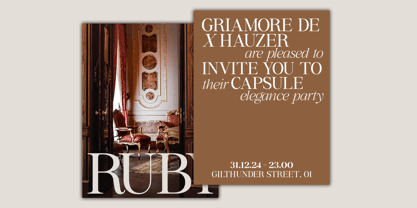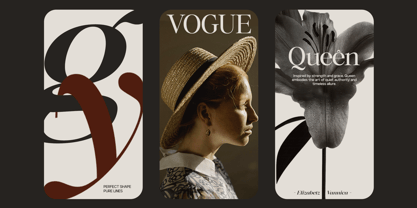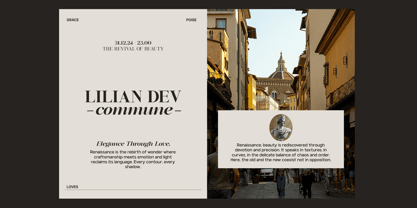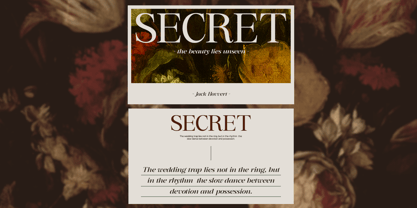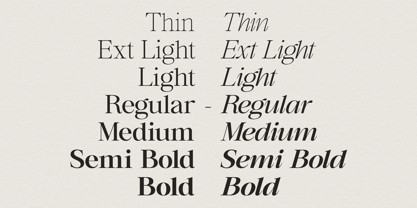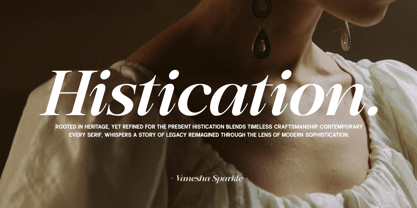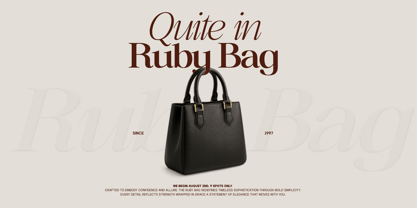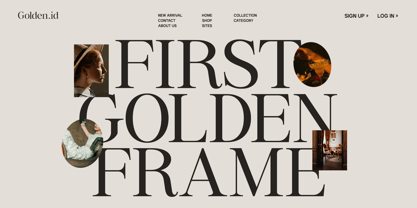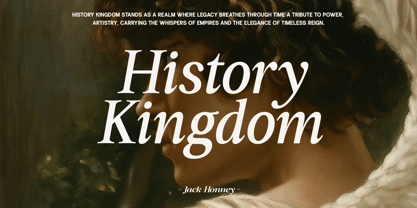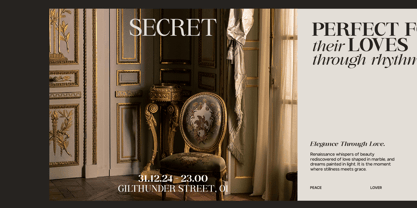
GC Mozarella
Die Schriftfamilie GC Mozarella wurde von Muhammad Hafiizh Solana entworfen und von Onyx Studio veröffentlicht. GC Mozarella enthält 14 Stile und Familienpaketoptionen. Mehr über diese Familie
GC Mozarella is an elegant serif typeface that blends timeless sophistication with modern versatility. Designed with graceful curves, refined contrast, and true italic styles, it offers both classic beauty and contemporary appeal. Each letterform is carefully crafted to bring warmth, confidence, and a touch of luxury to any design. Perfect for editorial layouts, fashion branding, packaging, and high-end visual identities. Balanced proportions and precise detailing make GC Mozarella adaptable yet distinctive. Whether you’re designing elegant headlines, refined body text, or expressive logotypes, this typeface delivers both charm and clarity in every weight. Features: Uppercase & Lowercase Numbers & Punctuation Variable Font with True Italic Multilingual Support (170+ Languages) Bring elegance, balance, and timeless sophistication to your design with GC Mozarella.